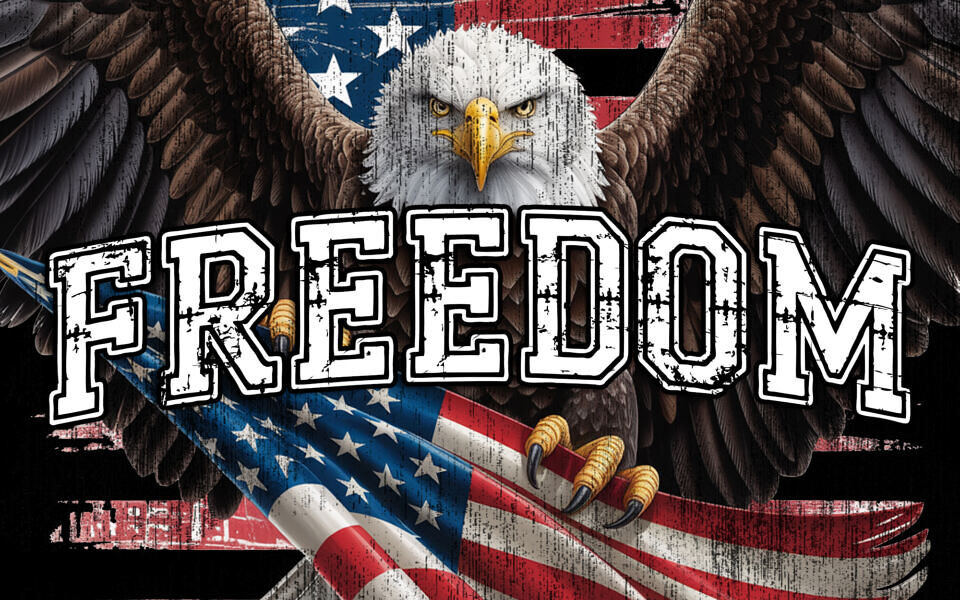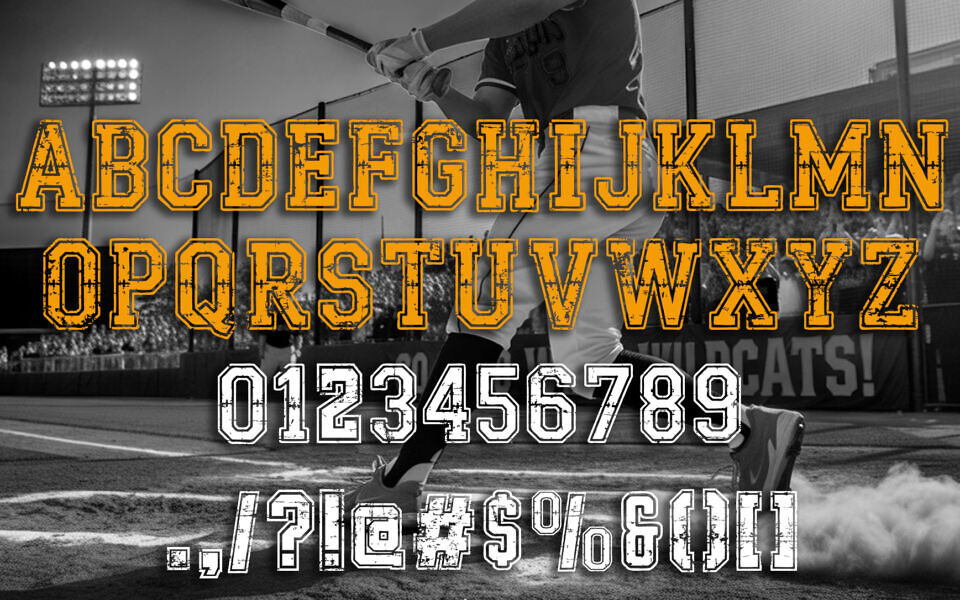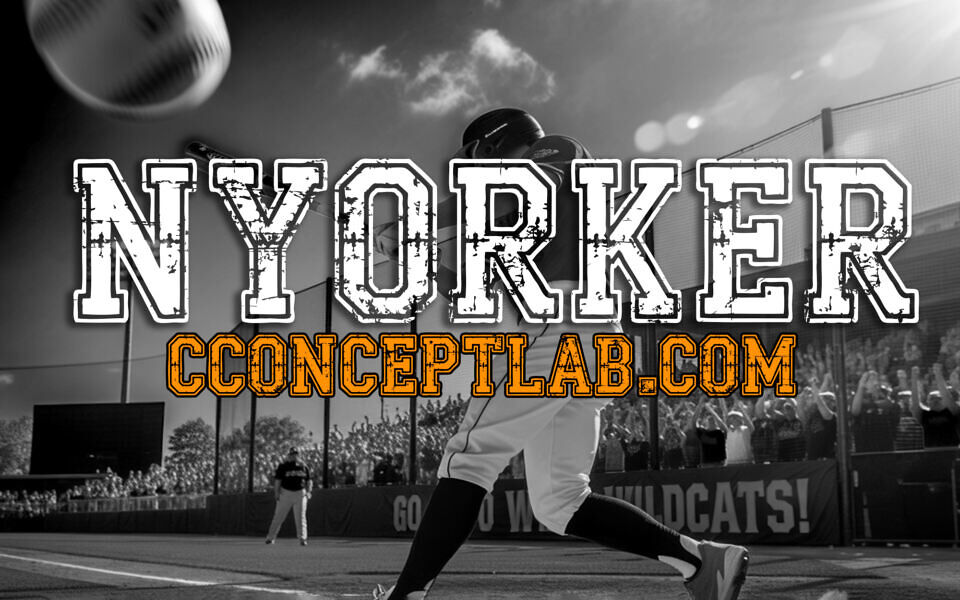
Nyorker Font is a bold and rugged display typeface with a distressed, vintage athletic look. Designed by ConceptLab, this font features all-caps lettering with a textured, worn-out effect that adds a sense of toughness and nostalgia—perfect for sports themes, patriotic designs, or retro Americana visuals.
With sharp serifs and a commanding presence, Nyorker evokes stadium energy and classic varsity aesthetics. It includes uppercase letters, numbers, punctuation, and symbols, making it versatile for headlines, posters, team branding, and merchandise. Ideal for projects that demand bold impact and a gritty, vintage flair.